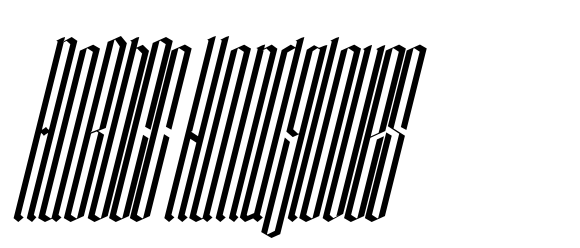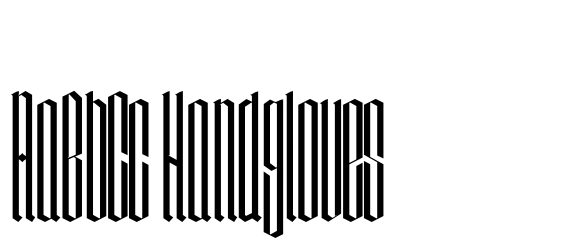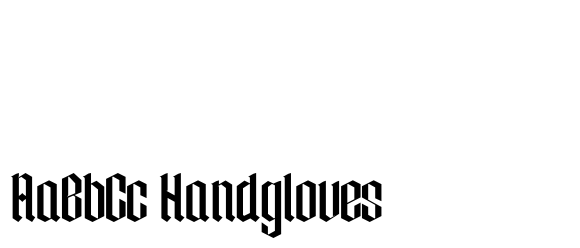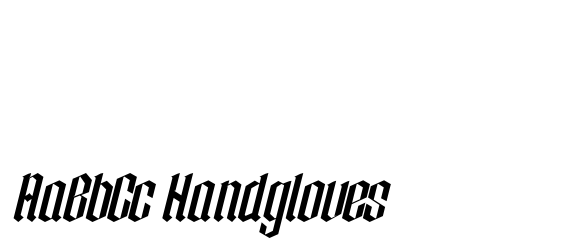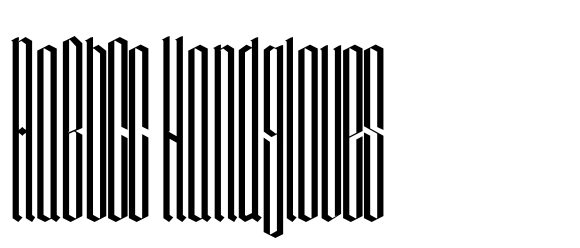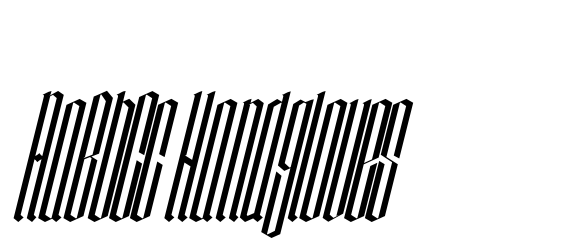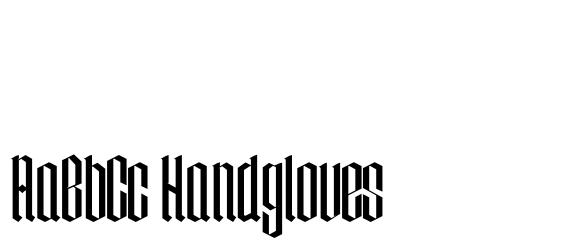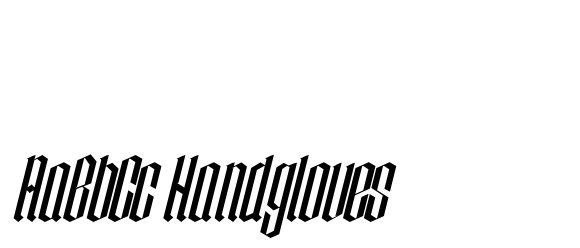
Manufake
por Mofr24
La familia tipográfica Manufake fue diseñada por Mohamad Farhan Ramadhan y publicada por Mofr24. Manufake contiene 8 estilos y opciones de paquete familiar.
Introducing Manufake, a blackletter typeface tailored for the innovative and avant-garde, featuring a distinctive blend of contemporary and classic aesthetics. The font encapsulates an air of sophistication while maintaining a streak of cool edge, making it a versatile tool for multiple languages. Flourishing in large scales and italic styles, it adds nuance to any visual context. Manufake boasts over 600 unique glyphs, bringing your t-shirt or streetwear designs, posters and typography projects to life. With its audacious, style-forward appeal, Manufake gracefully meets the needs of magazine layouts, branding endeavors, or any high-impact visual designs, making a bold statement in every design scenario.